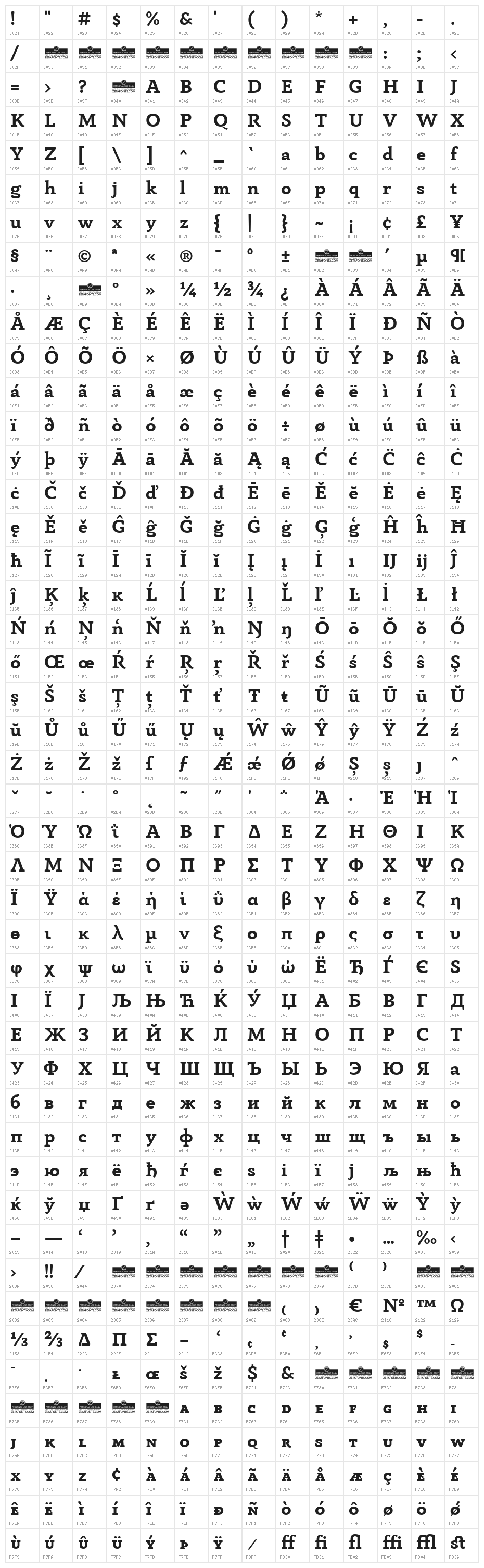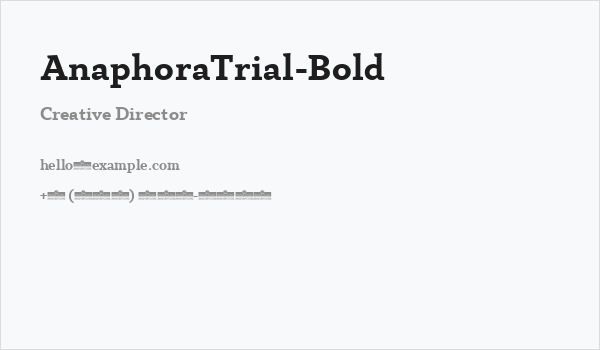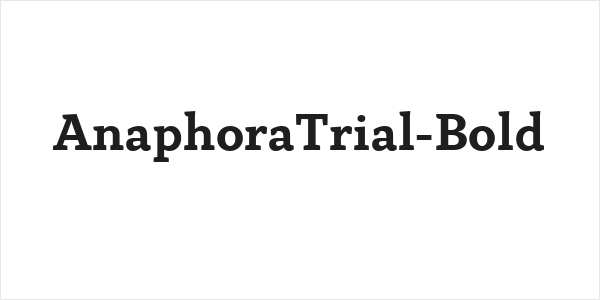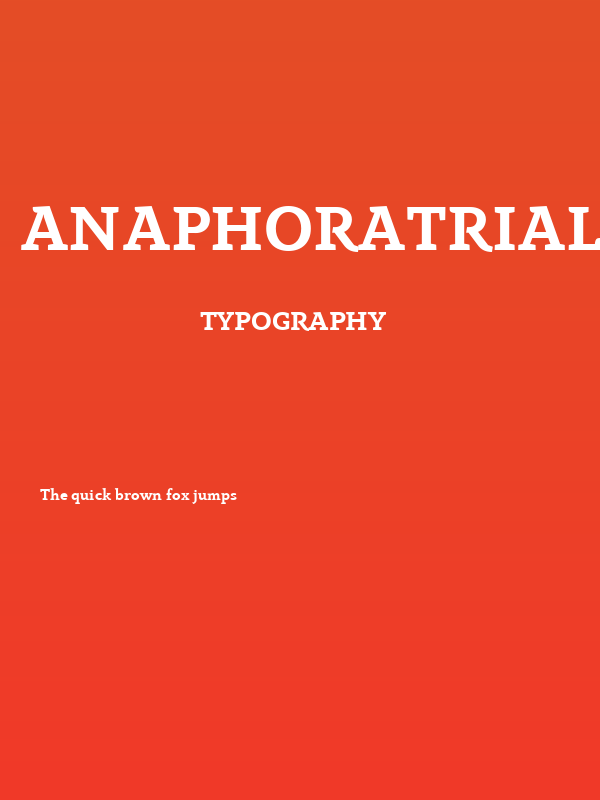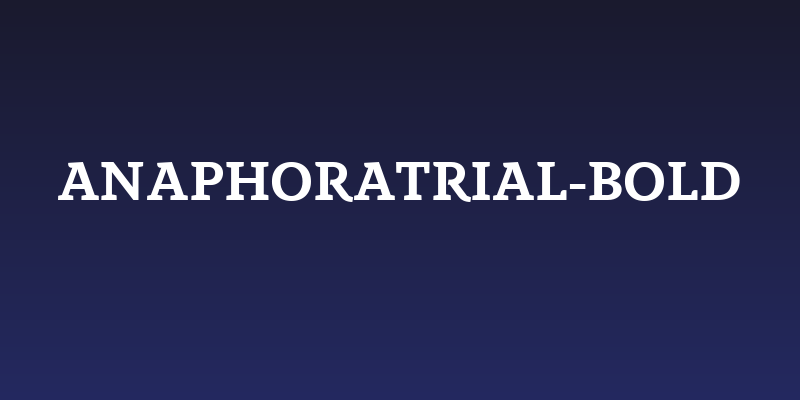
AnaphoraTrial-Bold Font
AnaphoraTrial-Bold Description
This font exhibits a strong and bold presence with its thick strokes and robust serifs, making it highly legible and impactful. The uppercase letters are uniformly designed with a consistent height, while the lowercase letters maintain a balanced proportion, ensuring readability. The numerals are clear and distinct, complementing the overall boldness of the typeface. Special characters are crafted with precision, adding to the font's versatility. The font's design is both classic and modern, suitable for a variety of applications where a strong visual statement is needed.
| Proposed Projects | Ideal for headlines, branding, posters, and any design requiring a bold statement. |